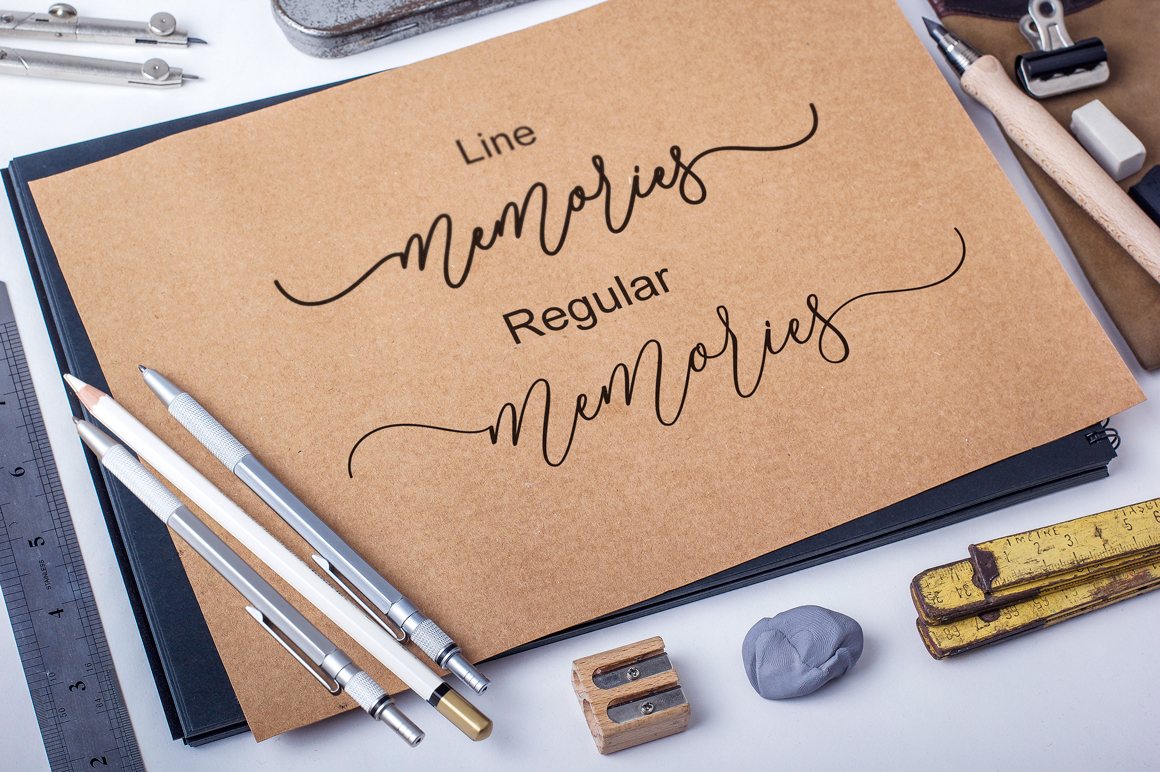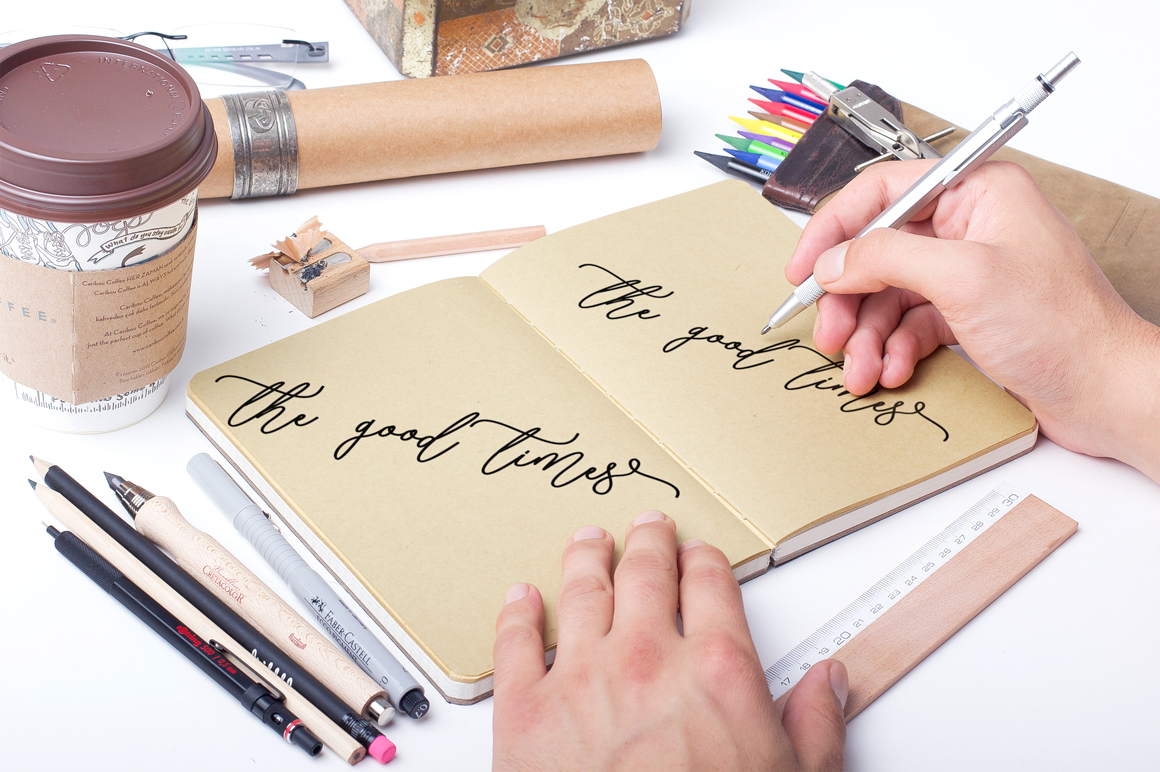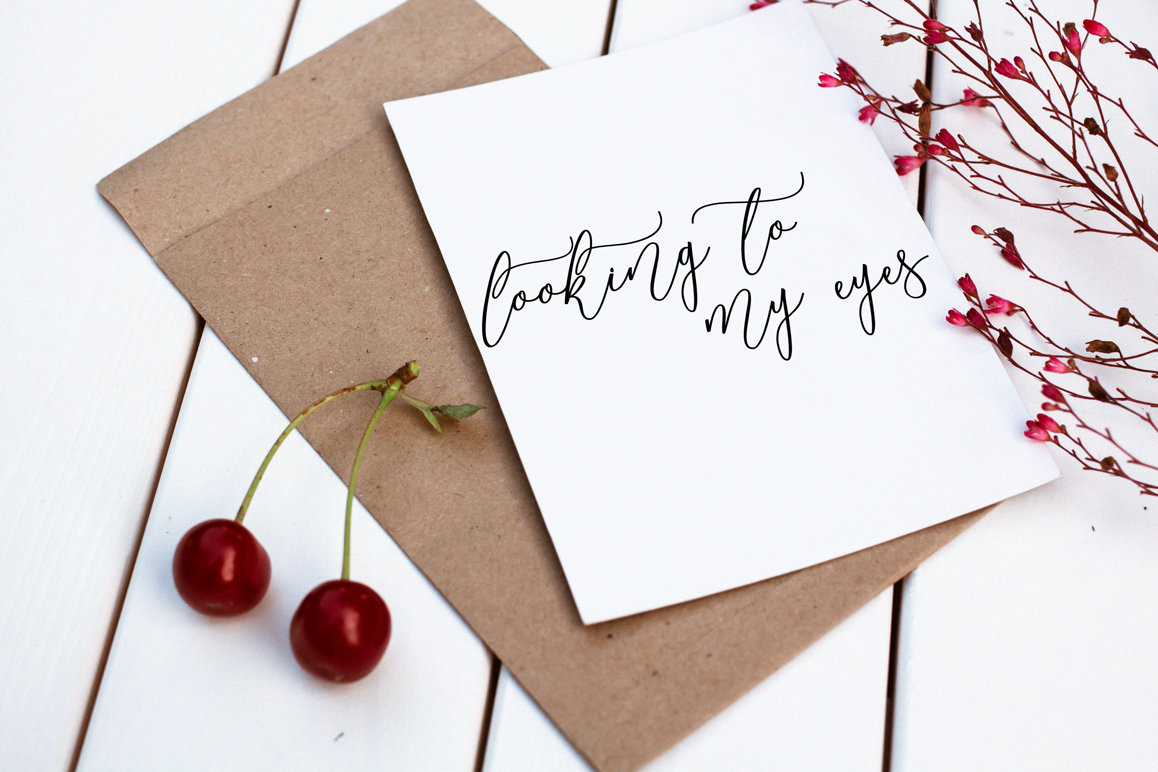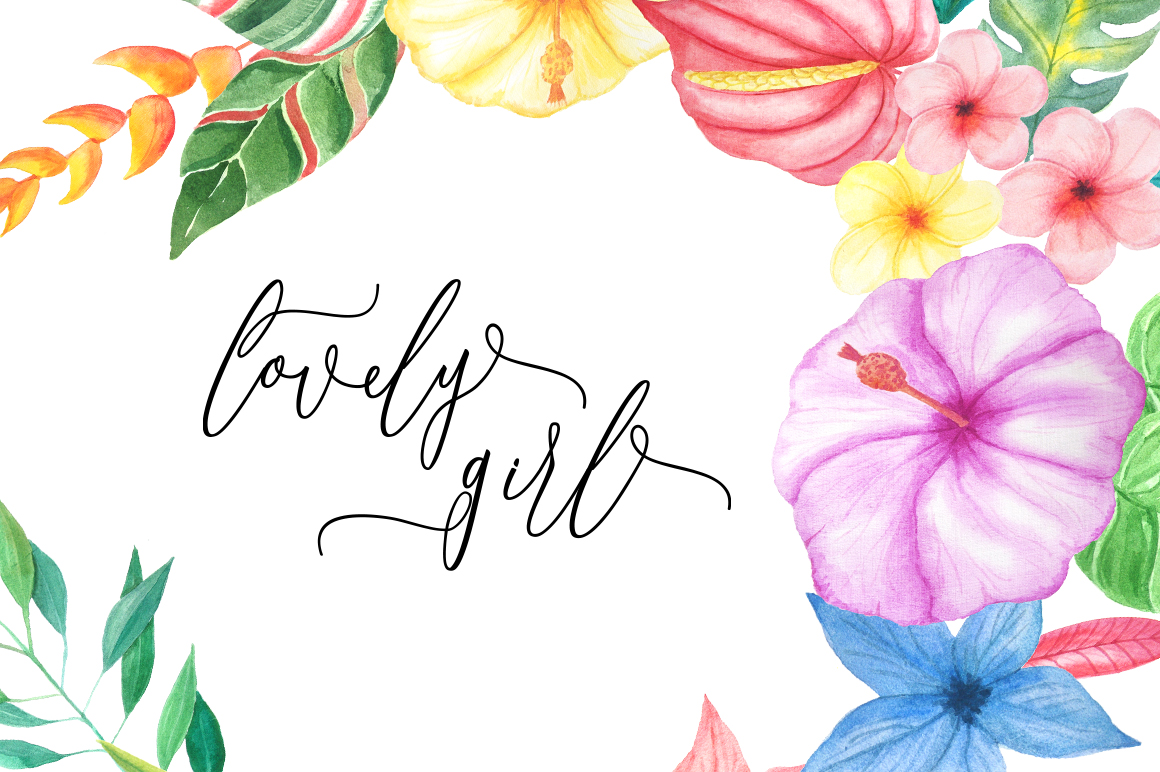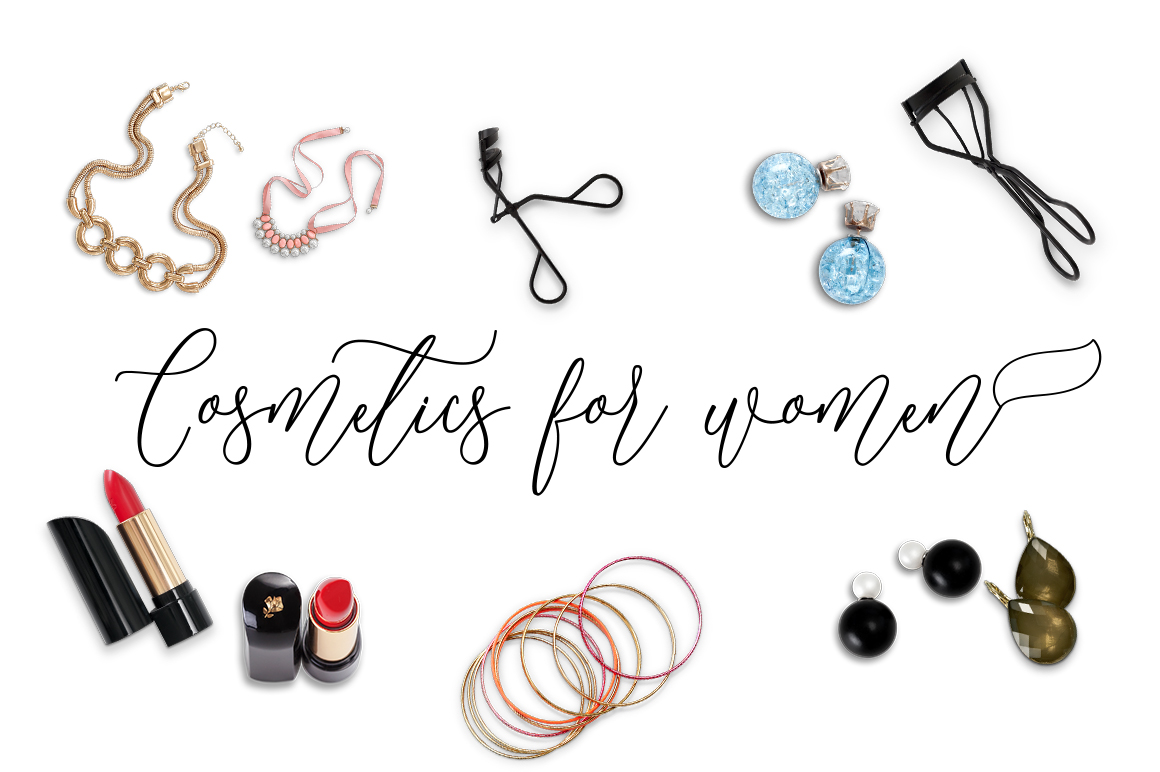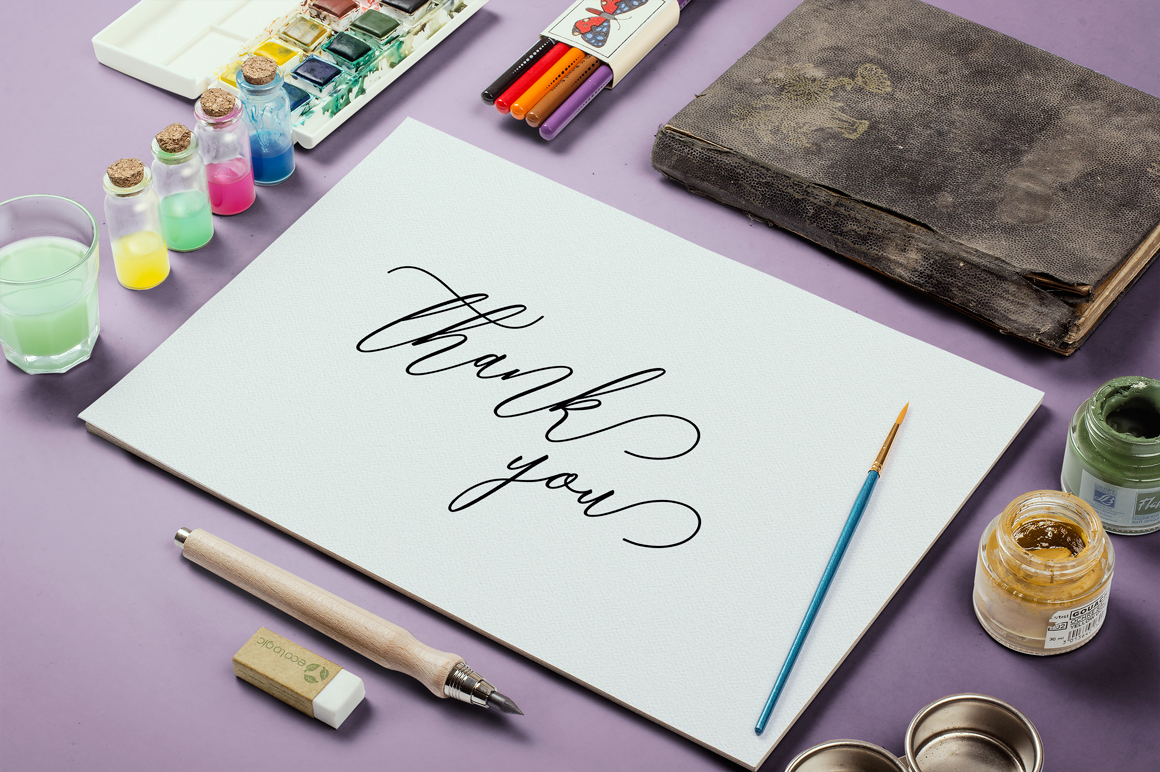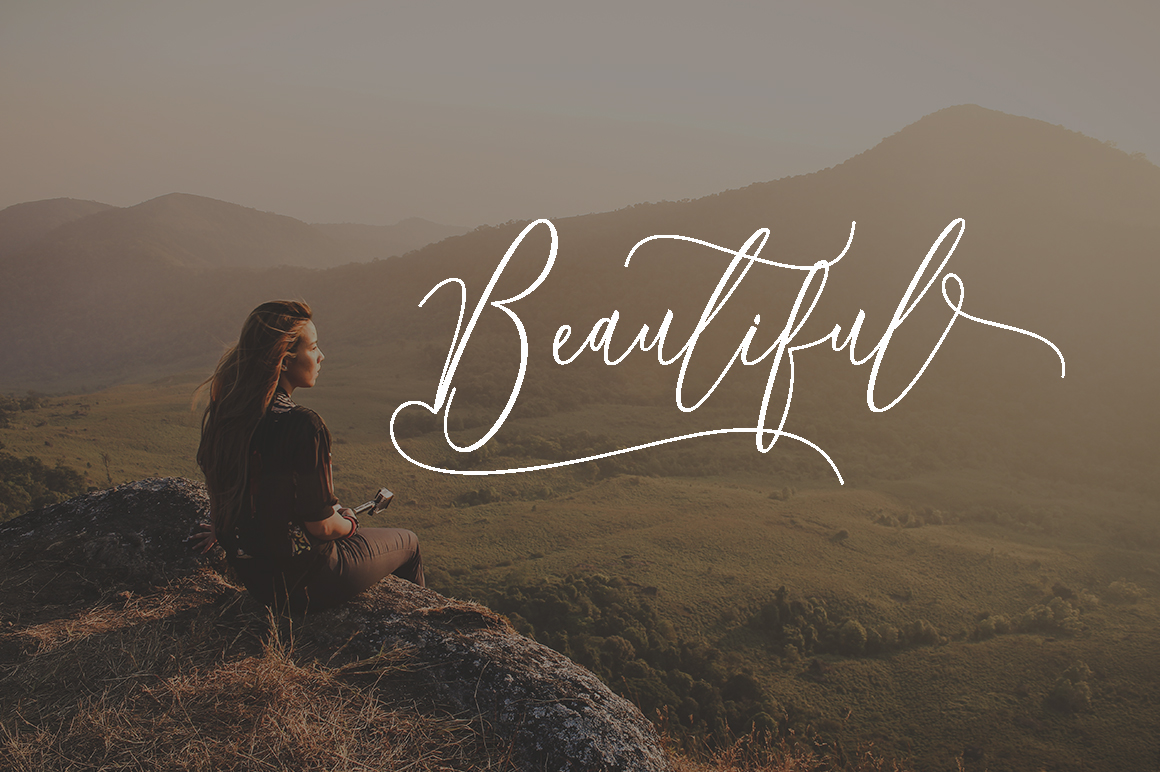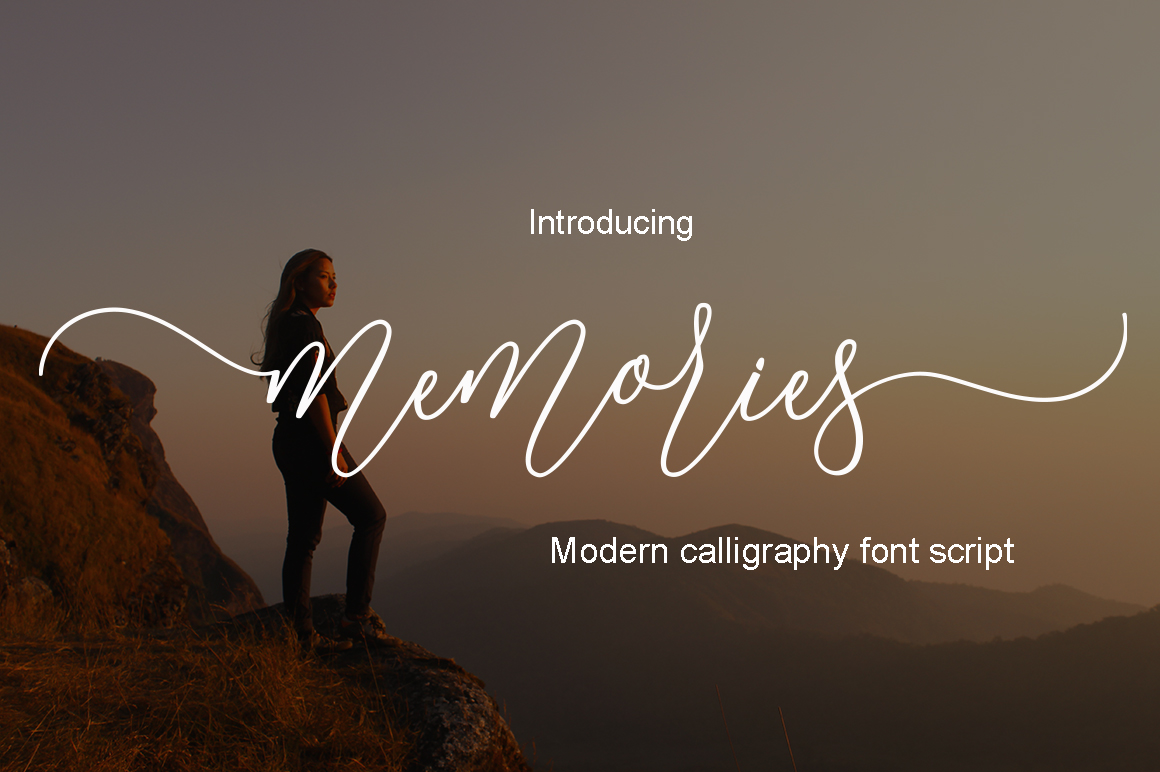
Memories Font
About Memories Font
Memories Script is a font duo that consists out of Memories Regular & Memories Line. This stylish calligraphy font has a varied baseline.